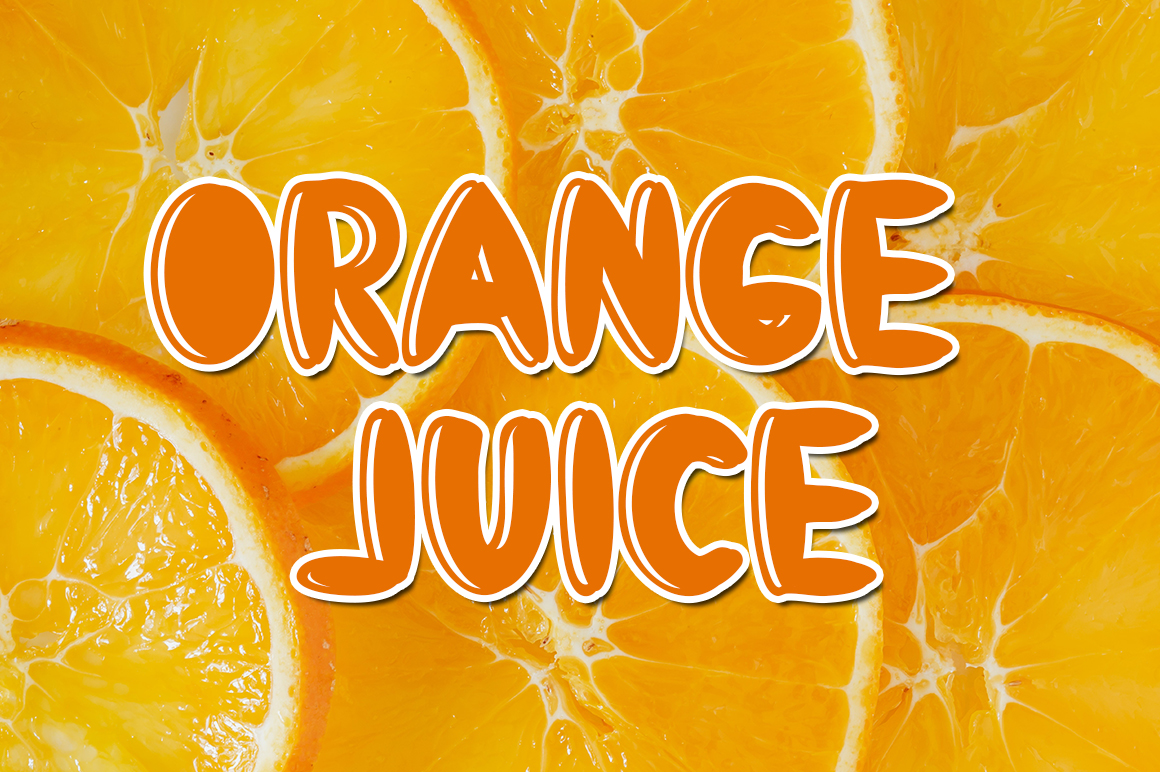
Fresh Drink Font
Fresh Drink Display Font
It’s a cool and bubbly display font. Whether you are using it for cartoon-related designs, children’s games, quotes, titles, brand names, book covers, posters, or just any creation that requires a touch of beauty, this font is a great choice.